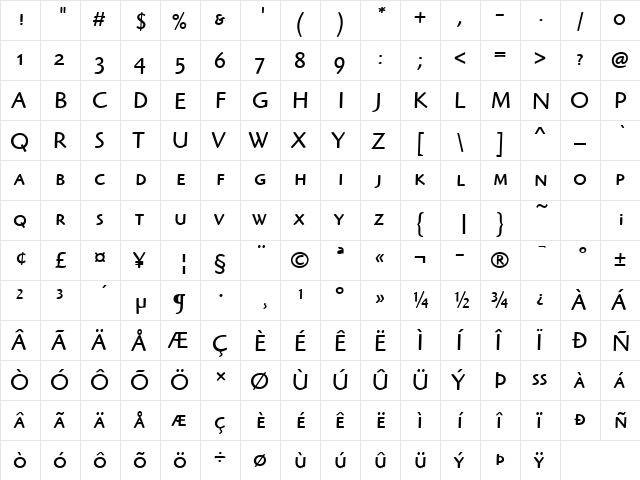
Highlander SC ITC TT Book
Design Context for Highlander SC ITC TT Typeface
Highlander SC ITC TT is a composed and adaptable typeface that performs quietly and consistently across a wide range of design contexts.